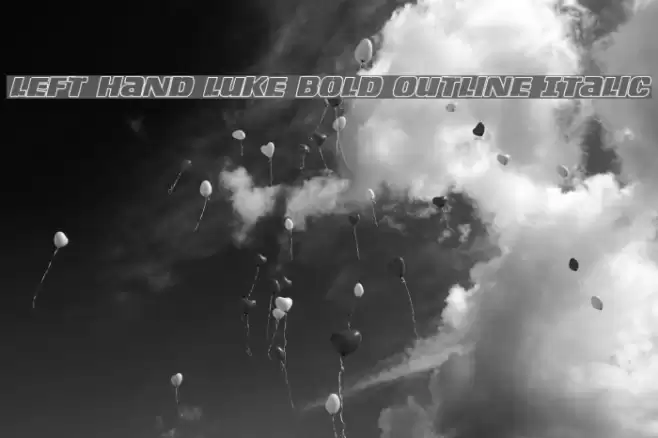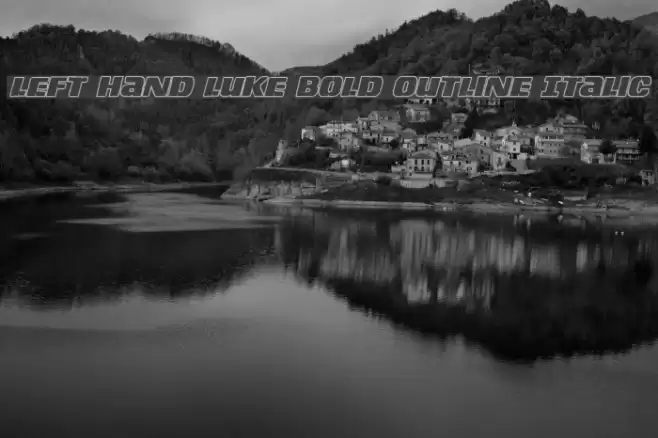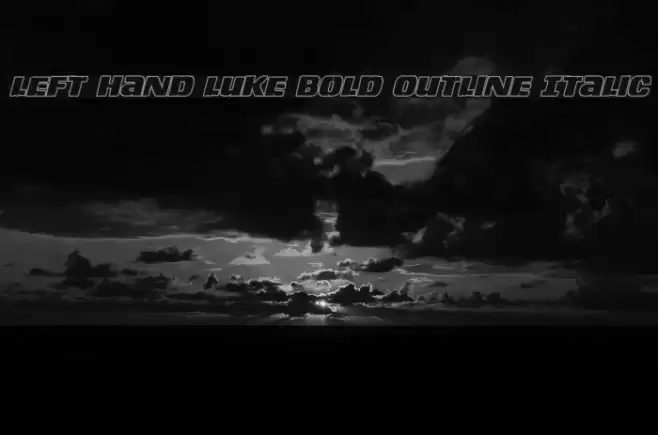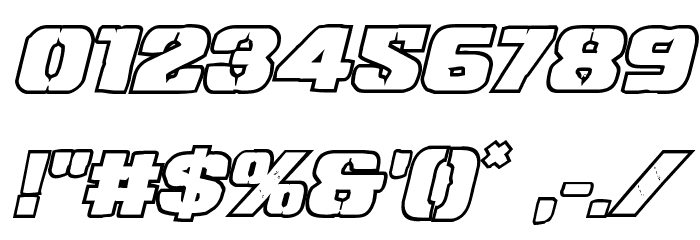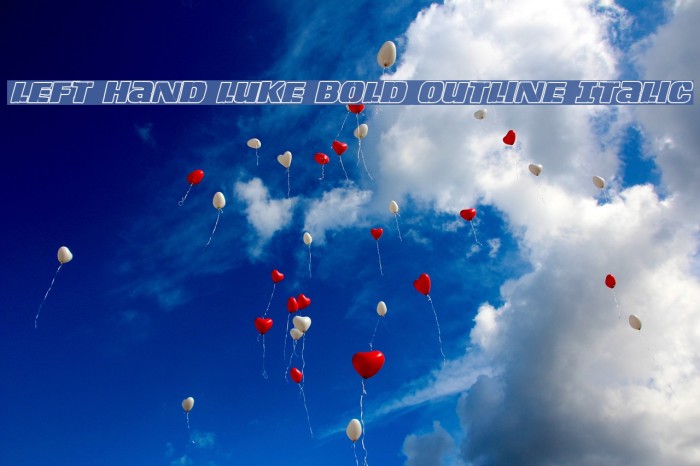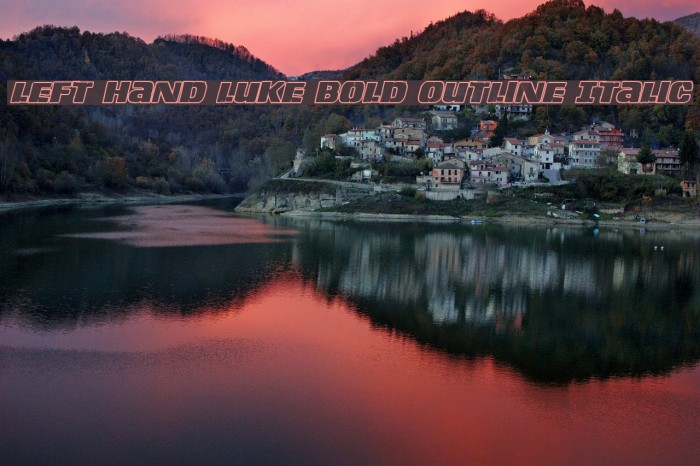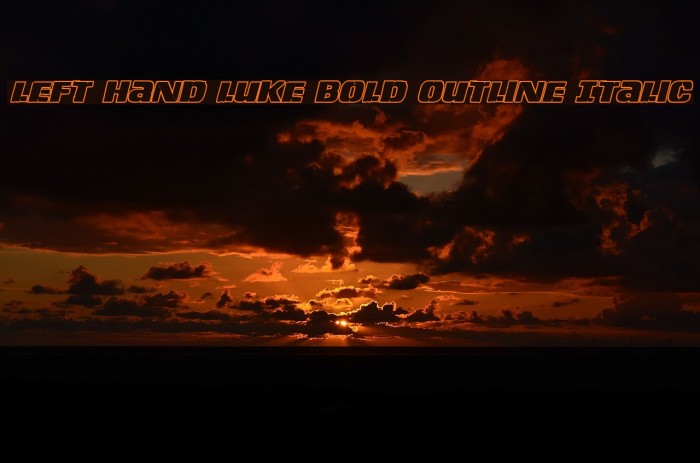
Left Hand Luke Bold Outline Italic Font
Left Hand Luke Bold Outline Italic Description
This font features a bold, outlined style with an italic slant, giving it a dynamic and eye-catching appearance. The uppercase and lowercase letters are consistent in their boldness, with a distinct outline that enhances readability and adds a modern flair. The numbers and special characters maintain the same stylistic elements, ensuring uniformity across all characters. The italic angle adds a sense of movement and energy, making it suitable for designs that require a strong visual impact. The font's outline design allows for creative use of color and layering in graphic projects.
A bold, outlined, italic font with a modern and dynamic style from Distorted Eroded fonts.
- Proposed Projects: Ideal for posters, logos, headlines, and any design requiring a bold statement.